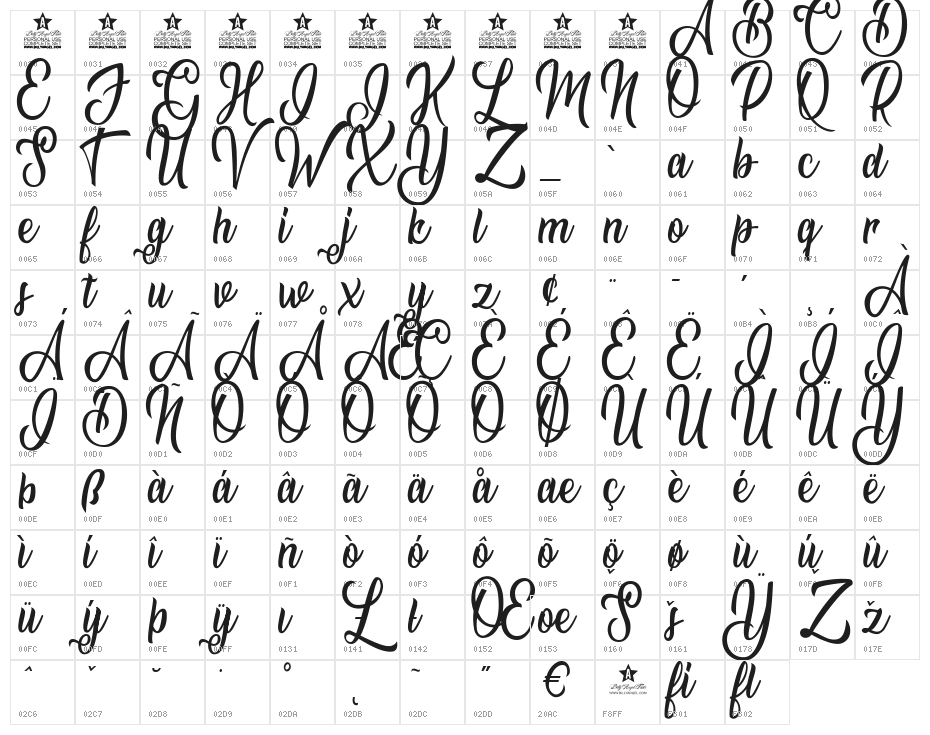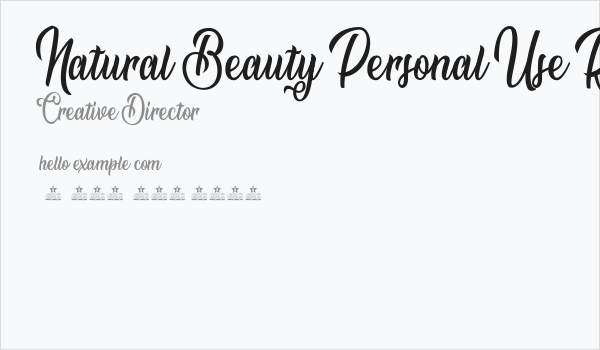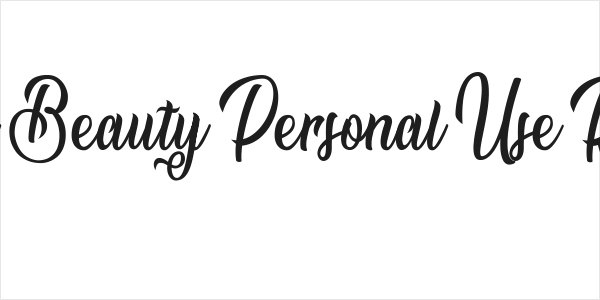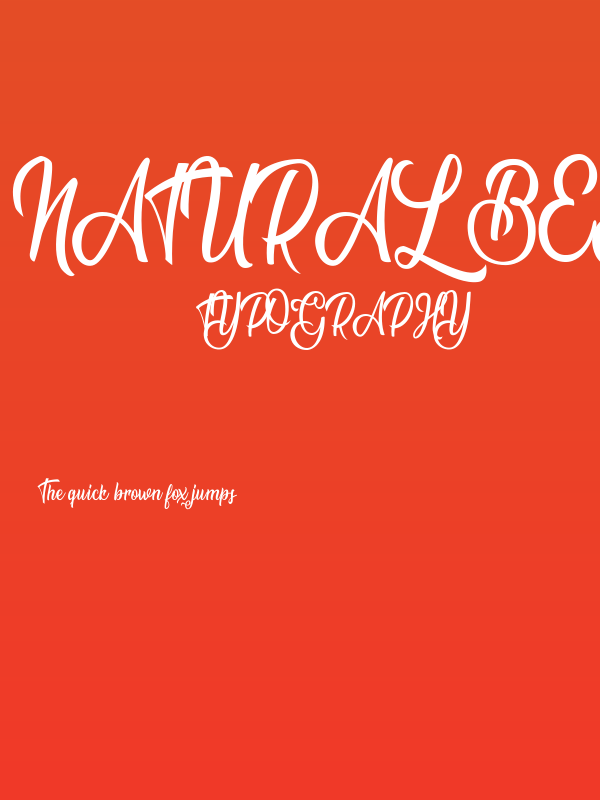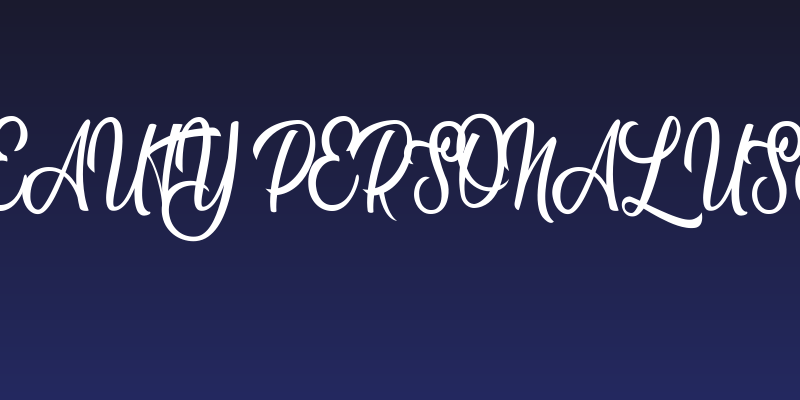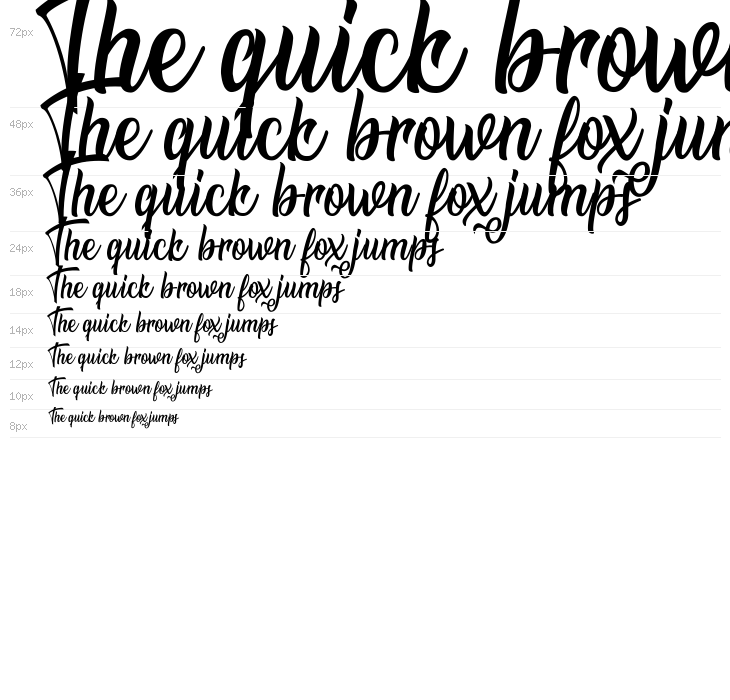
Natural Beauty Personal Use Regular Font
Natural Beauty Personal Use Regular Description
This font features an elegant and flowing script style, characterized by its smooth, cursive letterforms that exhibit a natural and artistic flair. The uppercase letters are bold and prominent, with intricate loops and swirls that add a touch of sophistication. The lowercase letters maintain a consistent flow, with gentle curves and a slightly slanted orientation that enhances readability while preserving the font's decorative appeal. The numerals are designed to match the overall style, offering a cohesive look throughout. Special characters are included, maintaining the same graceful aesthetic. This font is ideal for projects that require a personal and artistic touch, such as invitations, greeting cards, and branding materials.